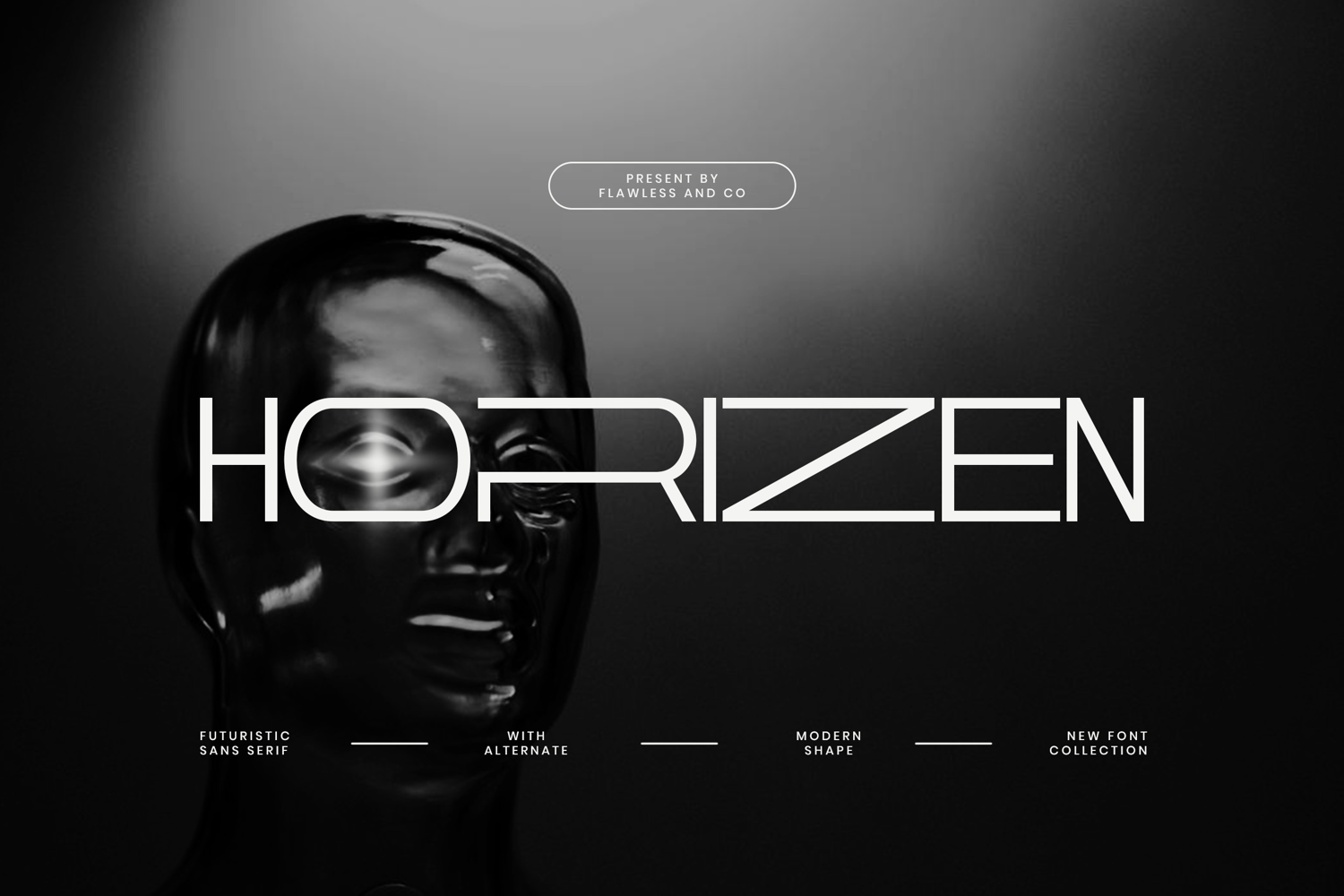
Horizen
HORIZEN
Horizen - Futuristic Sans Serif Font
Horizen is a futuristic sans serif font that embodies modern innovation and sleek precision. Designed with sharp geometry and refined spacing, Horizen delivers a bold visual identity that feels cutting-edge and forward-thinking. Its clean lines and distinctive alternate forms bring a sense of technology, progress, and minimal sophistication—making it perfect for projects that demand a futuristic aesthetic. Ideal for modern branding, digital interfaces, and high-tech logo designs, Horizen bridges the gap between contemporary design and visionary style. Each letter is crafted to reflect clarity, confidence, and the spirit of advancement.
Who Should Use Horizen?
Horizen is perfect for designers, creatives, and brands who want to communicate innovation, technology, and modern sophistication through typography. It’s ideal for those seeking a sleek, futuristic edge that sets their visuals apart. Whether you’re crafting high-tech brand identities, cinematic titles, or digital product interfaces, Horizen brings a professional and visionary touch to every design.
It’s especially suited for:
• Designers focused on modern and futuristic aesthetics
• Creative studios developing digital and tech-oriented branding
• Brands that emphasize innovation, minimalism, and forward-thinking design
• UI/UX designers seeking clean, geometric typography for modern interfaces
• Motion and 3D artists who want a bold, sci-fi-inspired font for visual impact
A Must-Have Font for “Brand and Logo” Creators and Designers
Horizen is a must-have for designers and brands that want to project a sense of innovation and futuristic identity. Its sleek lines, geometric precision, and modern spacing make it the perfect font for crafting standout brand logos and visual systems. Whether used in technology, gaming, fashion, or creative industries, Horizen delivers a clean yet bold impression that captures attention and defines modern excellence.
Why Choose Horizen for “Brand and Logo” Projects?
Choose Horizen because it embodies the essence of forward-thinking design. With its futuristic sans serif style and unique alternates, this font gives every brand a sharp, innovative edge. Its clean geometry and modern proportions ensure maximum versatility—perfect for logos, tech startups, digital products, and creative branding that aim to look ahead of the curve. Horizen isn’t just a font—it’s a statement of modernity, progress, and sophistication.
Suitable For:
• Futuristic brand identities and tech startups
• Logo and corporate branding projects
• User interface and app design
• Sci-fi movie titles and posters
• Gaming and eSports visuals
• Product packaging and digital advertising
• Modern website headers and social media graphics